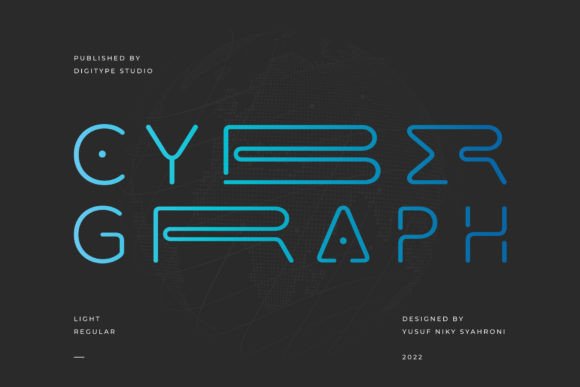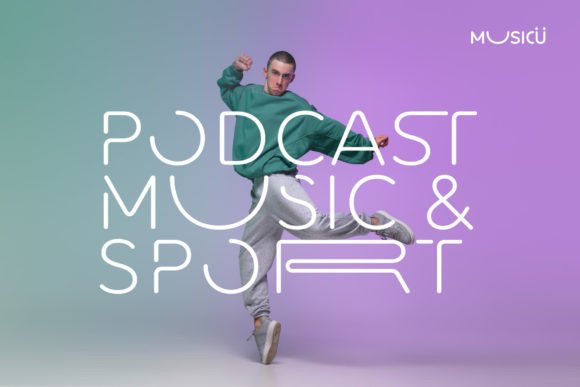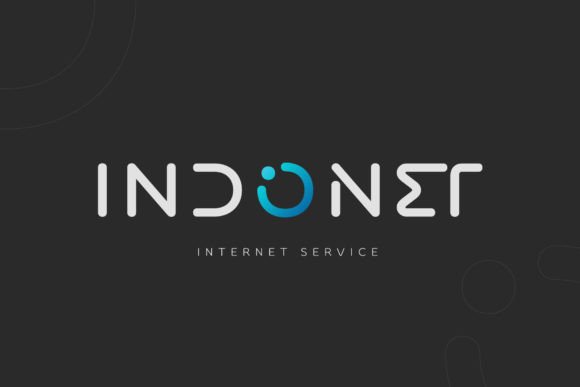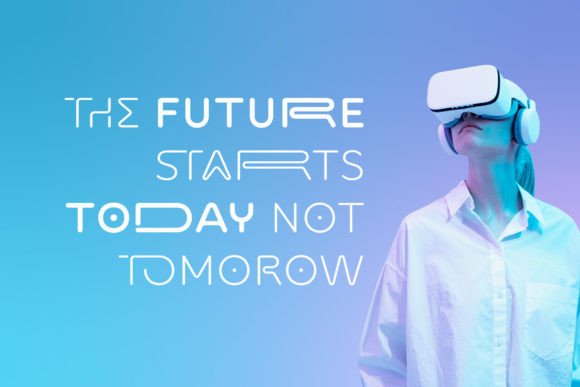
Cyber Graph Font
About the Cyber Graph Font
Add a touch of class to your work with the Cyber Graph Font, a truly exceptional typeface. Cyber ​​Graph is a rounded futuristic font. This modern and bold vibe can easily apply to your favorite designs that require a sci-fi touch.
Cyber Graph excels in headline applications, short impactful statements, and branding elements where a bold, futuristic aesthetic is desired. It’s ideal for posters, logos, and packaging design for technology-related products or science fiction-themed projects. However, its rounded forms, while visually striking, don’t lend themselves well to extended body copy or UI elements requiring high readability. Small sizes can become difficult to decipher.
Pairing Cyber Graph with a clean sans-serif like Open Sans for body text provides a strong contrast and maintains readability. For a more playful feel, consider a geometric sans-serif such as Futura or a rounded script font like Pacifico for secondary elements. Alternatively, a classic serif like Garamond can add a touch of sophistication, creating an interesting juxtaposition of old and new.
The overall personality of Cyber Graph is bold, modern, and slightly rebellious; it projects a sense of technological advancement and forward-thinking energy.